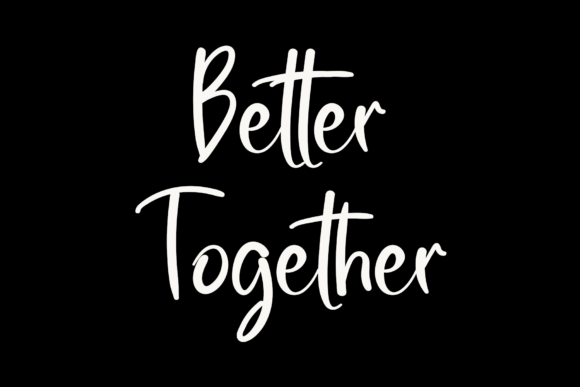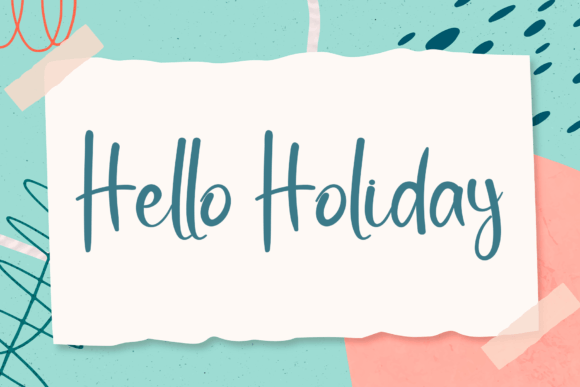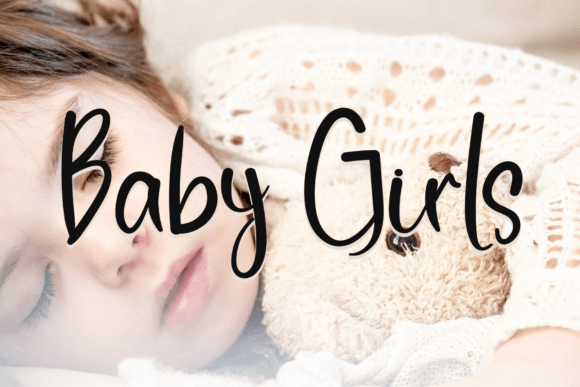
Introduction to Santaclous Font
Santaclous is a sweet and friendly handwritten font.
Cute and fun, this font is ideal for writing wedding invitations, cards, or any other design that might need a fun touch .